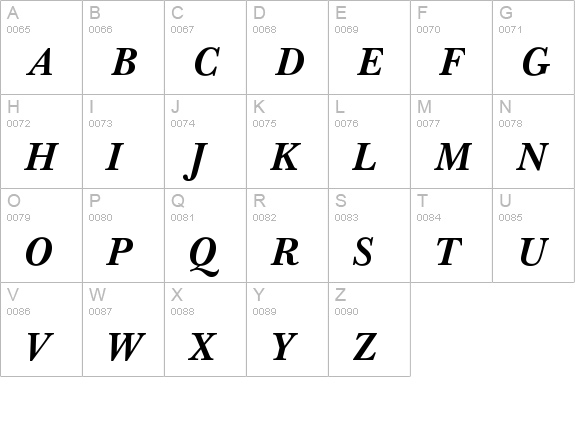
Baskerville Bold Italic is a strong, high-contrast, italic variant in the Baskerville typeface family \xE2\x80\x94 well suited to headlines, attention-grabbing titles, and strong calls-to-action.
Baskerville Bold Italic is a timeless and elegant font that exudes sophistication and class. Its bold strokes and delicate italics create a perfect balance between strength and grace. The sharp serifs and clean lines make it a versatile choice for a variety of design projects, from traditional to modern. This font is a staple in the typography world, known for its readability and legibility. It adds a touch of refinement to any text, making it ideal for branding, editorial design, and more. Baskerville Bold Italic is a must-have in any designer's toolkit, offering a classic aesthetic that never goes out of style. Best of all, Baskerville Bold Italic is available for free download at FontsMarket.com. Now you can easily enhance your designs with this sophisticated font without breaking the bank. Don't miss out on this opportunity to elevate your typography game with Baskerville Bold Italic. Download it today and see the difference it can make in your projects.